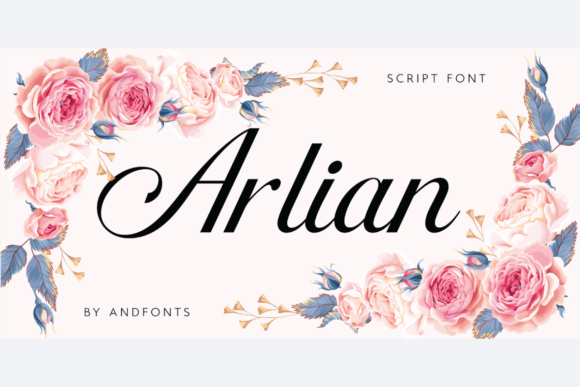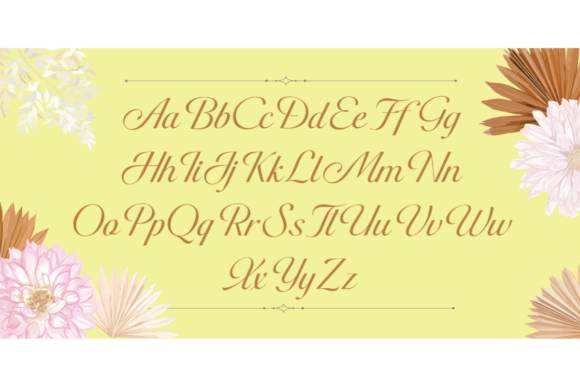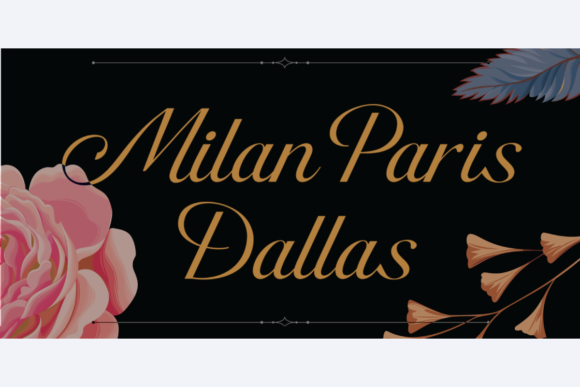
Arlian Font
About Arlian Font
Arlian is a charming and elegant handwritten font that adds a touch of beauty and sophistication to your designs. With its graceful letterforms and refined style, this font looks stunning on various design projects, including wedding invitations, thank you cards, quotes, greeting cards, logos, business cards, and more. It brings a handwritten touch that elevates the overall aesthetic of your creations.
The charm of Arlian lies in its delicate and graceful appearance. The smooth and flowing strokes of the letterforms create a sense of elegance and refinement. Whether you’re designing for special occasions like weddings or creating branded materials, Arlian adds a touch of beauty and sophistication that captivates the viewer.
Arlian is particularly well-suited for wedding invitations and thank you cards. Its elegant and handwritten nature enhances the romantic atmosphere of these special moments. The font brings a personal and heartfelt touch, making your invitations and cards truly memorable and meaningful.
Quotes and greeting cards also benefit from the elegant and charming style of Arlian. The font’s refined letterforms and delicate curves add a sense of warmth and sincerity to your messages. It creates a connection with the reader and conveys emotions with grace and beauty.
In addition, Arlian enhances the visual appeal of logos and business cards. Its handwritten touch adds a unique and personal element to your brand identity. It creates a memorable impression and sets your business apart with its elegant and refined style.
Arlian’s versatility allows it to be applied to various design contexts. Its elegant and charming characteristics make it suitable for a wide range of projects. The font adds a touch of sophistication and beauty that elevates the visual impact of your designs.
Incorporating Arlian into your designs brings a sense of charm and elegance. The font’s delicate and graceful handwritten style adds a timeless and refined touch to your creations. Embrace the beauty and sophistication of Arlian and watch as it enhances the overall aesthetic of your designs, making them stunning and captivating.
In summary, Arlian is a charming and elegant handwritten font that adds beauty and sophistication to your designs. Its refined letterforms and graceful style make it a stunning choice for various projects, including wedding invitations, thank you cards, quotes, greeting cards, logos, business cards, and more. Embrace the charm and elegance of Arlian and let it elevate the visual appeal of your designs, creating a lasting impression on your audience.